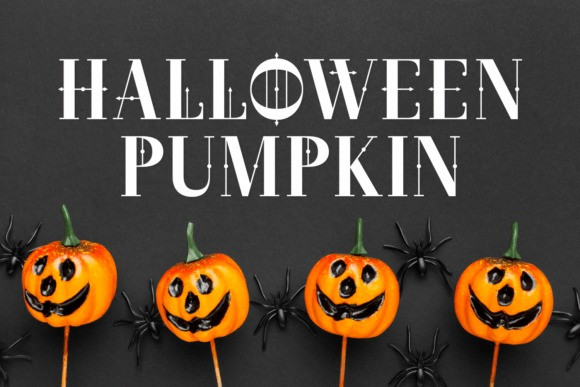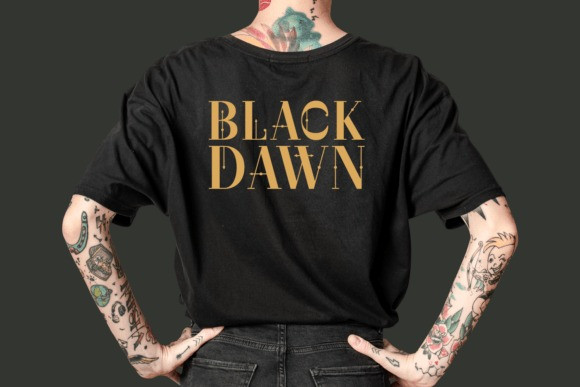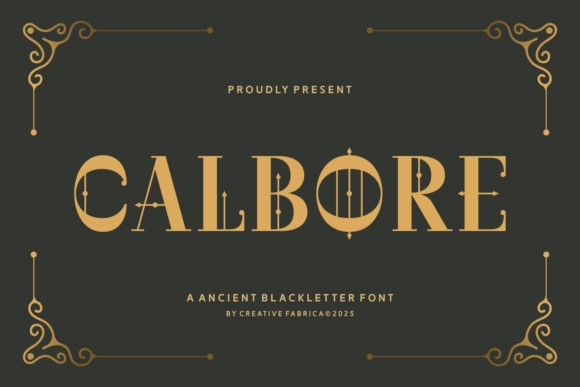
Calbore Font
Calbore Font, a font by Creative Fabrica from 2025, described as an “ancient blackletter font.” The design is enhanced by ornate, vintage-style corner flourishes, which complement the font’s historical and mystical character. The letterforms themselves are highly stylized with unique geometric details.